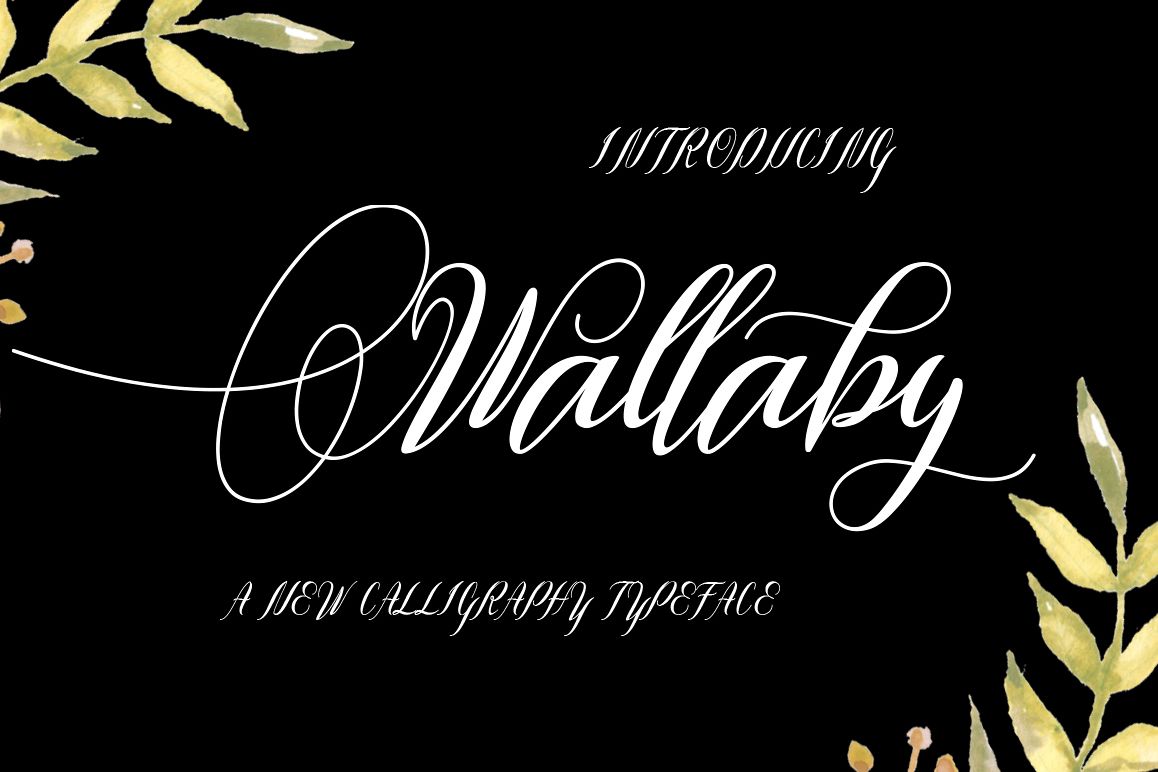
Wallaby
Wallaby Modern Calligraphy. This font was designed by handwriting, and it has a modern andunique forms of calligraphy, the writing style is very natural.The Features of this fonts is;
• Standart ligatures
• Contextual Alternates
• Stylistic sets